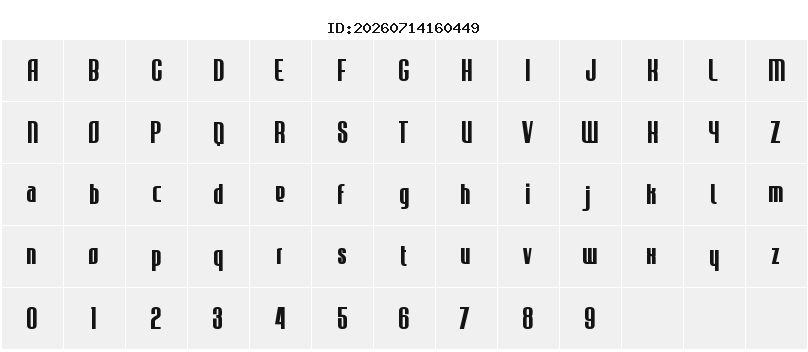
• Font Name: JECR Font
• Font Style: Gras
• Full Font Name: JECR Font Bold
• Designer: Julián Esteban Cano Rivera
About JECR Font.ttf
JECR Font.ttf is a modern, elegant sans-serif font designed for ultimate readability and visual harmony. Perfect for branding, headlines, web design, and print materials.